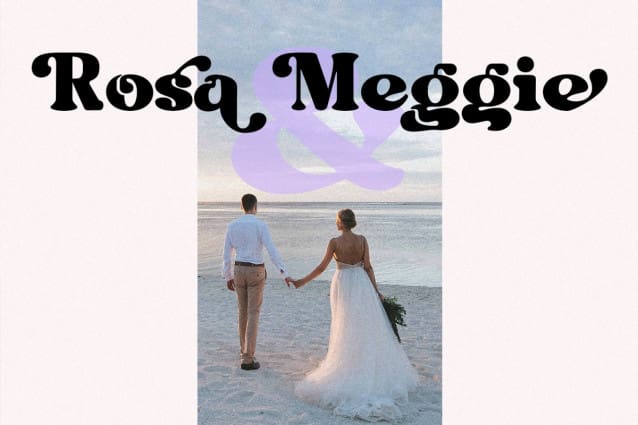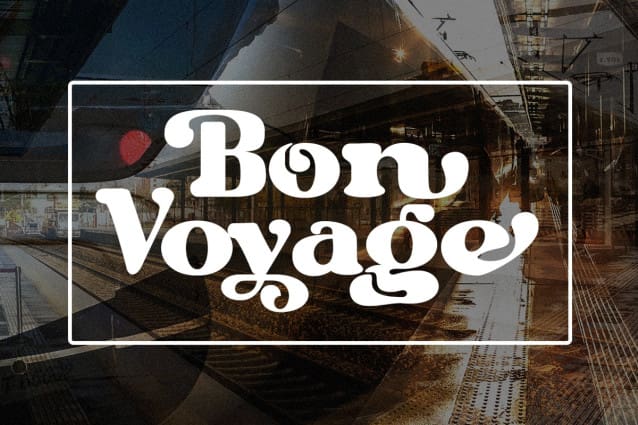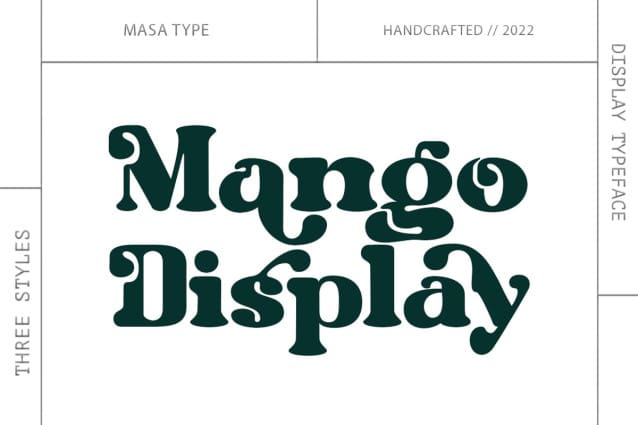
Mango Display Font
Mango Display Font is a stylish blend of classic serif fonts with modern serifs with bold curves giving it a traditional groovy vibe, luxury and versatility.
Mango Display is made with a high level of legibility and is perfect for nostalgic moodboard projects, vintage logos, wedding designs, social media posts, advertisements, product packaging, product designs, labels, photography, watermarks, invitations, stationery and any project.